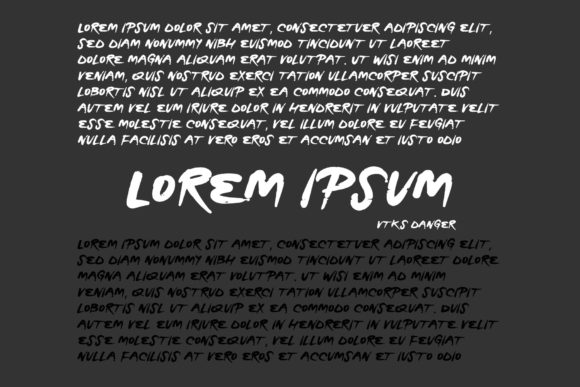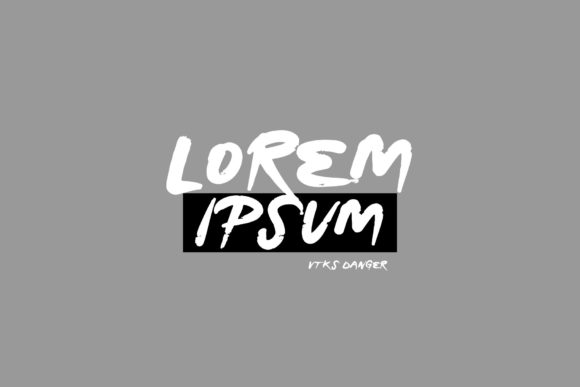
Introduction to Danger Font
Have you ever stared at a blank canvas, trying to come up with the perfect design for your next creative project? The cursor blinks on your screen, taunting you to create something amazing. It’s in these moments that a reliable design resource can make all the difference. For many designers, finding the right font can be the key to unlocking their creativity.
That’s where the Danger Font comes in – a cool, trendy, and brushed handwritten font that’s perfect for any occasion. Whether you’re working on a digital design project, creating greeting cards, or making presentations, this font has the potential to become your go-to design companion. And the best part? You can download it for free, complete with a transparent background for seamless integration into your design.
As a high-quality design resource, the Danger Font is a valuable addition to any designer’s toolkit. Its versatility and ease of use make it an ideal choice for designers of all levels, from beginners to pros. So why not give it a try and see how the Danger Font can elevate your next creative project?
Danger Font
- Features a bold and striking design with a transparent background, making it ideal for use on various backgrounds.
- Includes multiple font weights and styles, allowing for a range of creative applications.
- Perfect for use in graphic design, typography, and branding projects where a bold and attention-grabbing font is required.
Honest Review: Danger Font
I recently stumbled upon the Danger Font, a high-quality design resource perfect for adding a touch of edginess to any creative project. As a designer, I was excited to put it to the test.
Here are some things that worked well for me: ✨
- Unique style: Danger Font offers a distinctive, bold look that’s sure to grab attention.
- High-quality vectors: The font is available in high-resolution vector format, making it perfect for printing and scaling.
However, I did encounter a few limitations: ⚠️
- Limited character set: The font is limited to uppercase letters and a few punctuation marks, which may not be ideal for projects requiring extensive text.
- No transparent background option: The font is available with a white background, which may not be suitable for all design applications.
Overall, I’m impressed with the Danger Font’s unique style and high-quality vectors. While it may have some limitations, it’s a great resource for designers looking to add a touch of danger to their creative projects. I’d definitely recommend it for free download.
What is Danger Font?
Danger Font is a high-quality, free download design resource ideal for adding a warning or alert message to your creative project. It features a transparent background, making it versatile and easy to use in various design applications.
Danger Font is commonly used in warning signs, safety messages, and alert notifications. It can also be used to add a bold, attention-grabbing effect to your design.
Tips for Getting the Most Out of Danger Font
To get the most out of Danger Font, use it in conjunction with other design elements, such as bold text and bright colors, to create a visually striking warning message. You can also experiment with different font sizes and styles to achieve the desired effect.